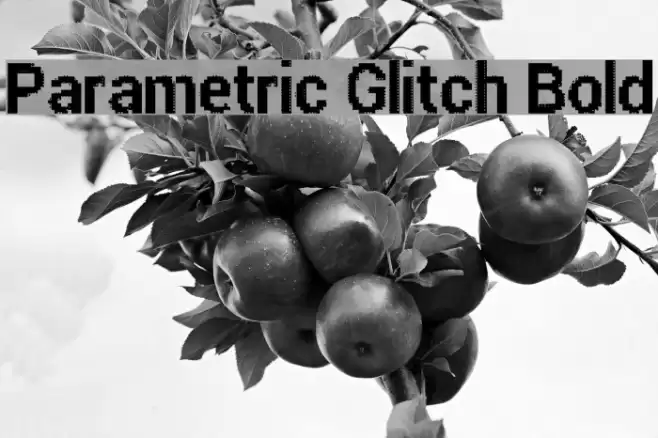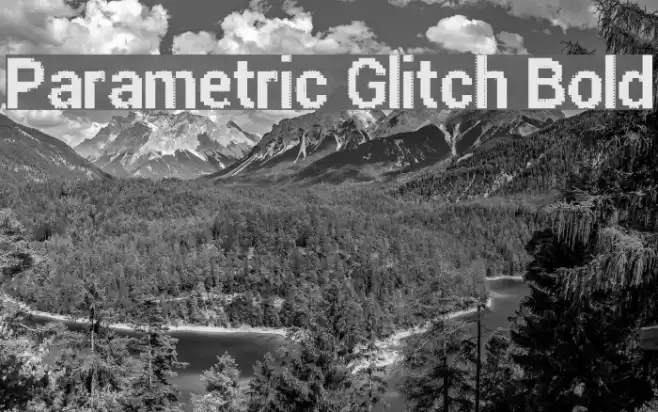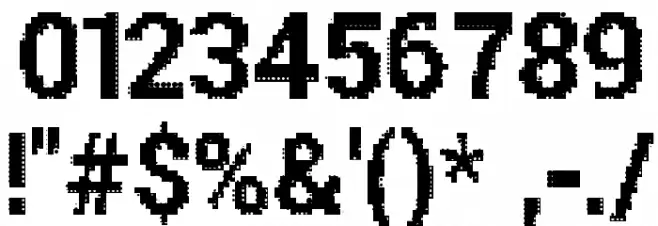
Parametric Glitch Bold Font
Parametric Glitch Bold Description
This font features a bold, pixelated design that evokes a digital or glitch aesthetic. The characters are constructed with a blocky, grid-like appearance, reminiscent of early computer graphics or digital displays. Each letter and number is distinct, with sharp edges and a uniform thickness that contributes to its bold presence. The font maintains a consistent height across uppercase and lowercase letters, ensuring readability while emphasizing its unique style. Special characters are integrated seamlessly, maintaining the same pixelated structure. This font is ideal for projects that require a modern, tech-inspired look.
A bold, pixelated font with a digital glitch aesthetic from Uncategorized fonts.